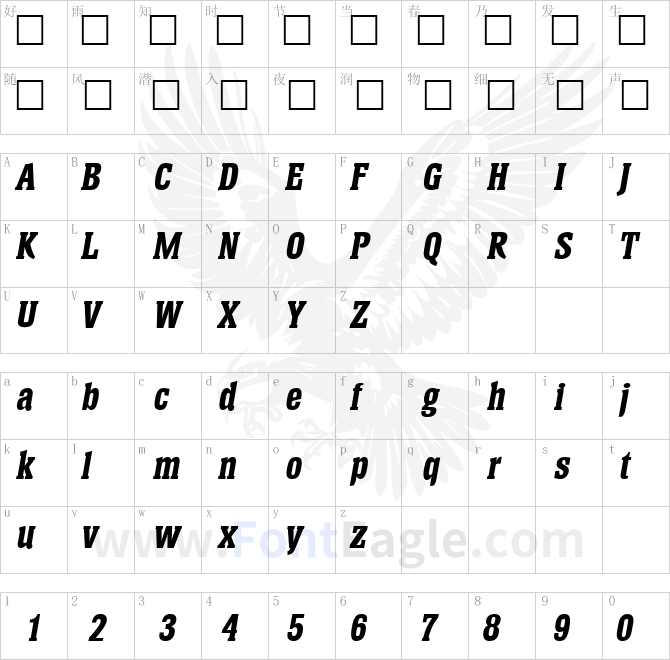
- Font name:Helium
- Font Subfamily ID:Altsys Fontographer 3.5 Helium Bold Italic
- Font Full Name:Helium Bold Italic
- Font Version:Altsys Fontographer 3.5 17.05.1994
- Postscript:Helium-BoldItalic